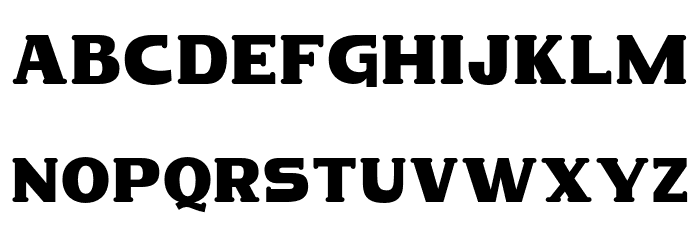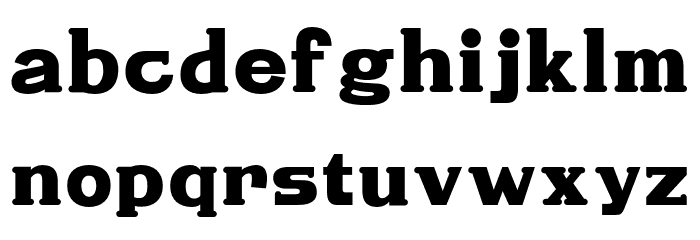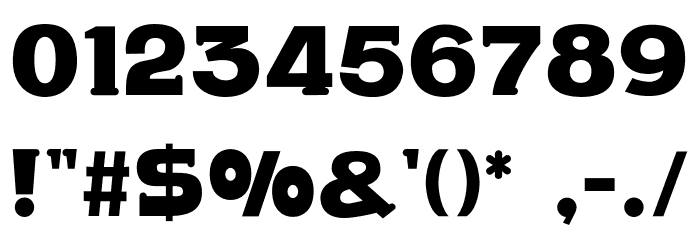
Youshun Regular Font
This font exhibits a bold and robust character with strong, thick strokes that give it a commanding presence. The letters are well-defined with a slight curvature in certain characters, adding a touch of elegance to its otherwise solid appearance. The uppercase letters are particularly striking, with a uniform height and width that convey a sense of stability and strength. The lowercase letters maintain a consistent style, complementing the uppercase with their rounded edges and balanced proportions. The numerals are clear and legible, designed to stand out with their bold weight. Special characters are crafted with the same attention to detail, ensuring they integrate seamlessly with the rest of the typeface. Overall, this font is versatile, suitable for a variety of applications where a strong visual impact is desired.
A bold, robust font with strong strokes and a commanding presence.
- Proposed Projects: Ideal for headlines, posters, branding materials, and any design requiring a strong visual impact.